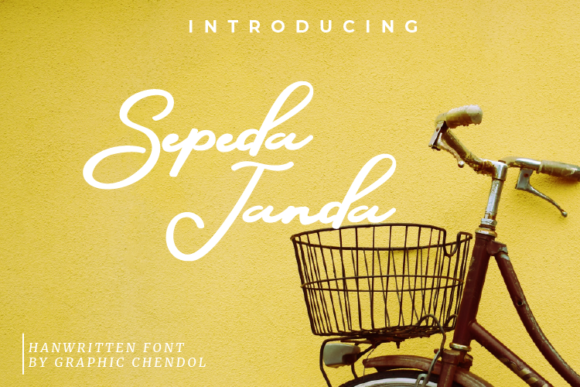
Feast your eyes on the captivating Sepeda Janda, a mesmerizing script font that will add a touch of elegance and charm to your creative endeavors. This stunning font, meticulously crafted by the talented rizal.medanguide, exudes a playful and cheerful vibe, making it perfect for adding a personal touch to your projects.
Are you tired of the same old, mundane fonts that fail to leave a lasting impression? Do you long for a font that dances across the page, capturing the attention of all who behold it? Look no further than Sepeda Janda, the font that will transform your designs into works of art.
With its flowing lines and whimsical curves, Sepeda Janda is perfect for adding a touch of whimsy to your projects. Its charming personality is sure to leave a lasting impression, whether you're creating eye-catching logos, heartfelt invitations, playful social media posts, or any other creative project you can imagine.
Step into the world of Sepeda Janda and unlock a world of endless possibilities, where your creativity knows no bounds. This versatile font is perfect for a wide range of projects, from heartfelt quotes and shirt designs to stunning websites and captivating branding. Unleash your inner artist and let Sepeda Janda guide you to new heights of creative expression.
But don't just take our word for it. Join the growing community of designers, bloggers, and creative professionals who have discovered the magic of Sepeda Janda. Witness firsthand how this font transforms ordinary designs into extraordinary creations, leaving a lasting impression on all who encounter it.
So why settle for ordinary when you can have extraordinary? Embrace the beauty of Sepeda Janda today and embark on a creative journey like never before. Let your imagination run wild and let Sepeda Janda be your guide. The possibilities are endless, and the magic awaits!